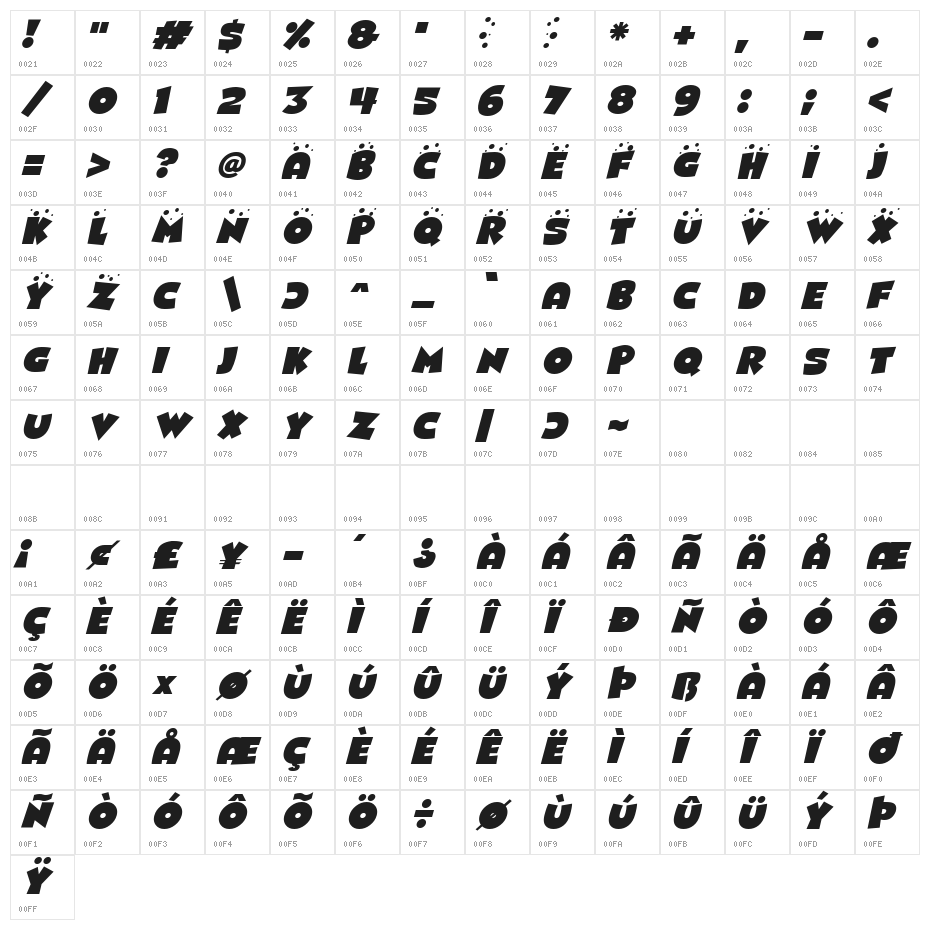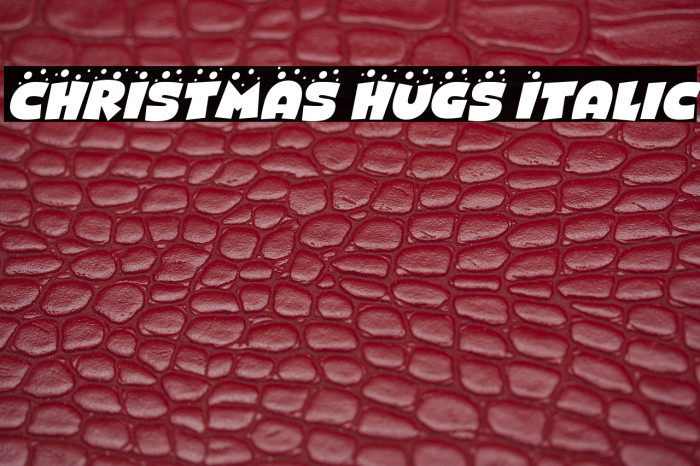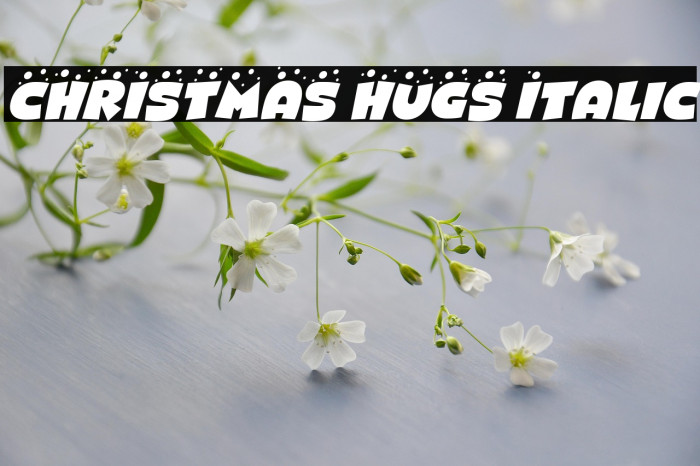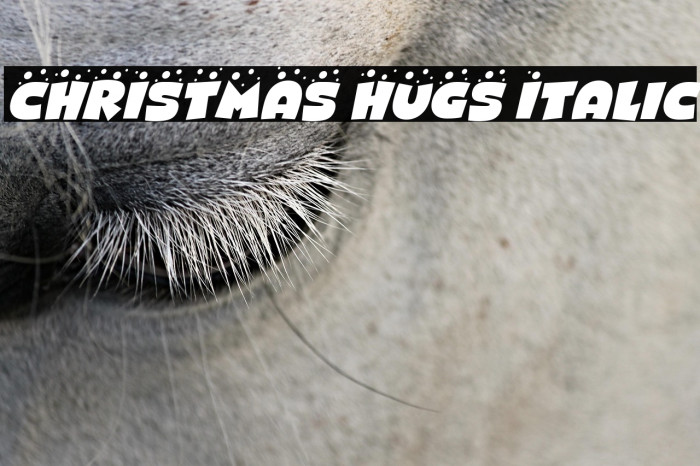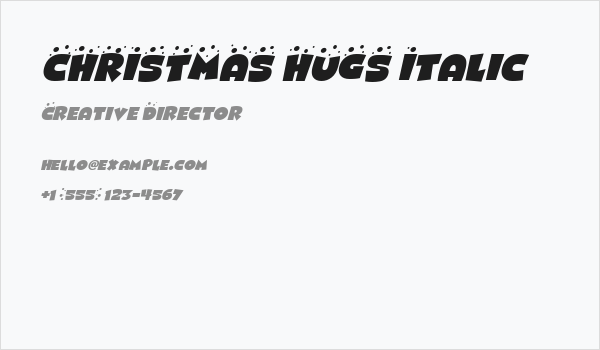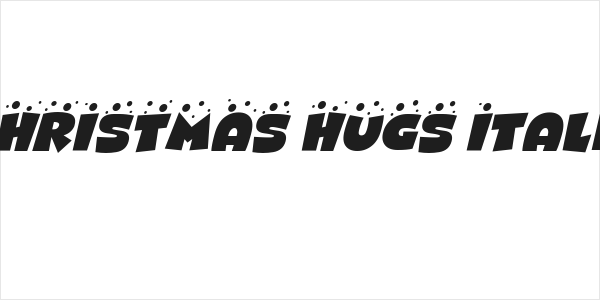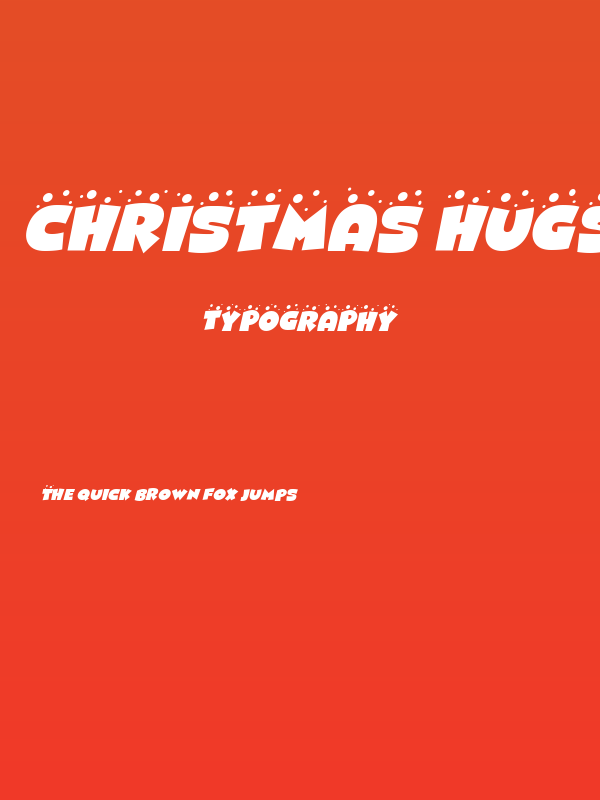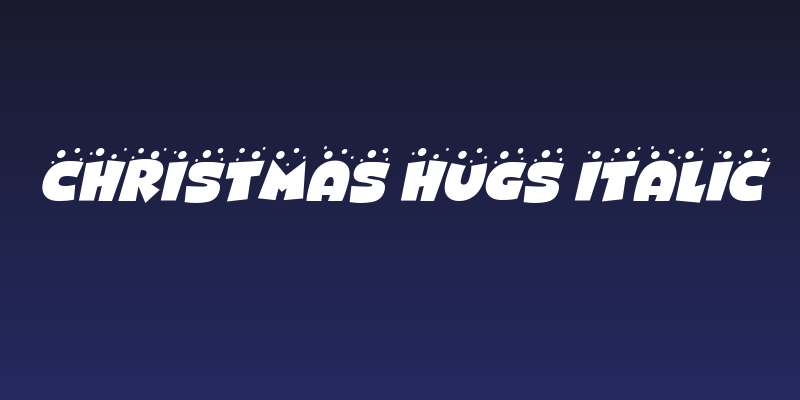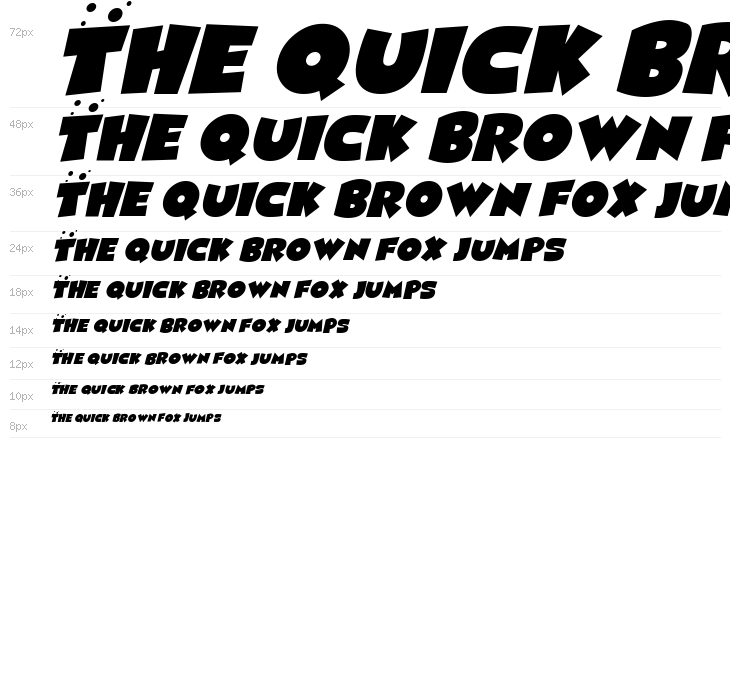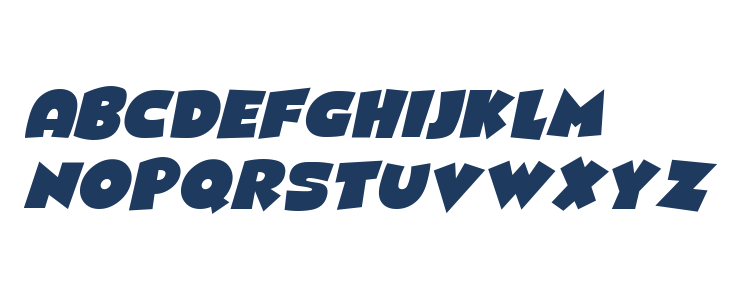
CHRISTMAS HUGS Italic Font
CHRISTMAS HUGS Italic Description
This playful and festive font features bold, italicized characters with a unique decorative touch. Each letter is adorned with a series of dots that create a whimsical, snow-like effect, perfect for holiday-themed designs. The uppercase and lowercase letters maintain a consistent style, with a slight forward slant that adds a sense of movement and energy. The numbers and special characters are equally bold and expressive, making this font versatile for various design needs. Its thick strokes and high contrast ensure readability while maintaining a fun and engaging appearance.
| Overall Style | Festive, Playful |
| Use Case | Headlines, Logos, Decorative text |
| Proposed Projects | Ideal for holiday cards, festive banners, playful posters, and children's book covers. |